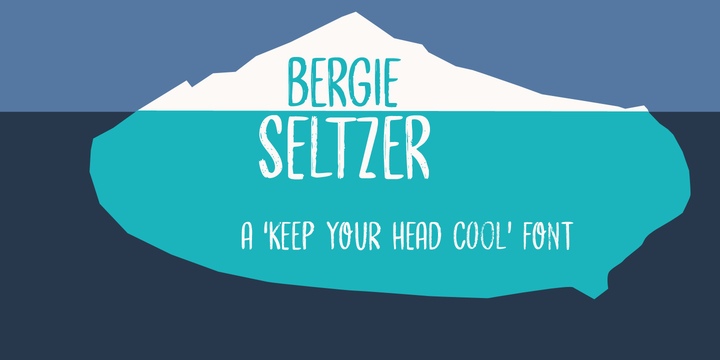
Bergie Seltzer Font
Bergie Seltzer Font is perfect for beverage branding, sparkling water companies, refreshing drink campaigns, vintage soda advertisements, retro diner signage, bubbly product packaging, effervescent marketing materials, classic American diners, nostalgic refreshment brands, and authentic fizzy beverage communications.
What makes Bergie Seltzer Font exciting is its effervescent charm that captures the refreshing fizz of sparkling beverages and vintage American soda fountain culture through bubbly crafted letterforms. This refreshing typeface combines retro soda aesthetics with contemporary functionality, creating a personality that communicates refreshment, nostalgia, and genuine American beverage tradition. The font's seltzer-inspired character and fizzy appeal make it perfect for beverage brands seeking to evoke the delightful sparkle of carbonated drinks and the charming atmosphere of classic American soda fountains.
The Bergie Seltzer Font family includes Regular, Bold, Light, Medium, Fizzy, Bubbly, Condensed, and Sparkling variants. Each weight maintains the font's effervescent character while providing comprehensive typographic flexibility for beverage brand identity systems and refreshing design applications across diverse drink industry platforms.
Whether you're developing beverage brand identities, creating refreshing marketing materials, designing vintage soda packaging, or building nostalgic drink campaigns, Bergie Seltzer Font delivers unmatched effervescent appeal and beverage sophistication. Its sparkling presence makes it perfect for soda companies, vintage diners, refreshment brands, and beverage manufacturers seeking authentic American soda fountain representation.
The font's bubbly proportions and effervescent details create a refreshing reading experience that captures the delightful fizz of sparkling beverages and nostalgic soda fountain memories. Each letterform has been carefully crafted to evoke carbonated refreshment and vintage American charm while maintaining excellent readability across modern beverage applications.
This versatile typeface excels in beverage environments, offering designers the refreshing appeal needed for comprehensive drink brand communication strategies. The extensive character set includes sparkling alternates, fizzy ligatures, and beverage symbols for refreshment market positioning and soda brand storytelling.
Embrace the power of refreshing design that celebrates American soda tradition and authentic effervescent beverage experiences.